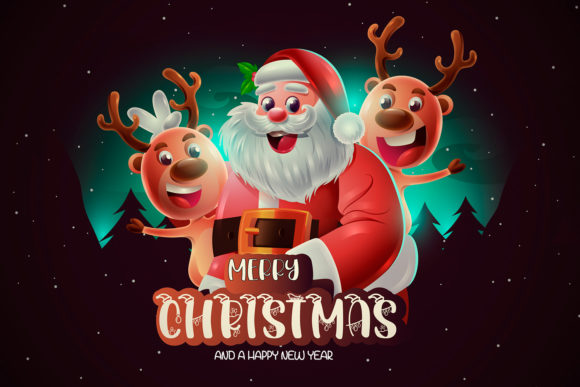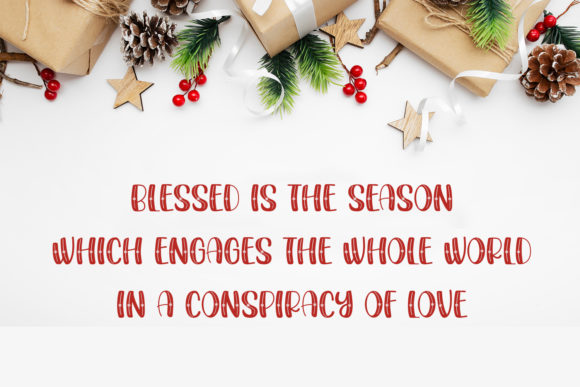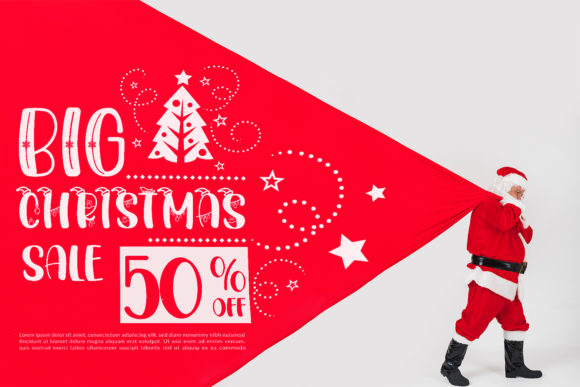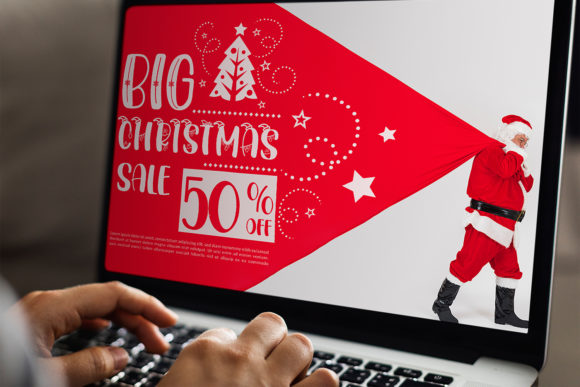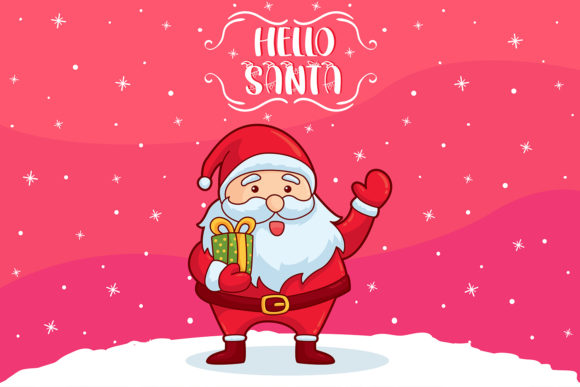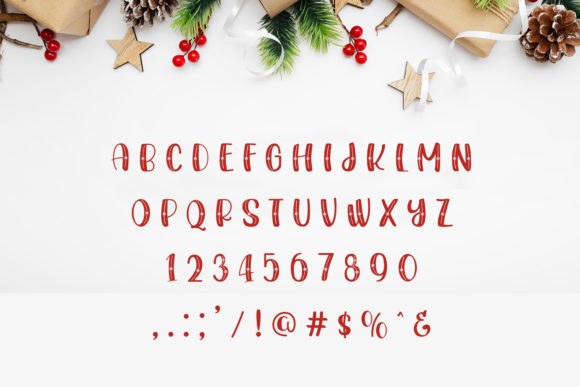
Introducing Christmas Land Font: The Ultimate Holiday Display Font
Are you looking for a font that captures the warmth and festivity of the holiday season? Look no further than Christmas Land Font, a beautifully designed display font perfect for creating holiday-themed greeting cards, crafting projects, and more. In this article, we’ll dive into the details of Christmas Land Font, exploring its features, uses, and benefits for designers and crafters.
What is Christmas Land Font?
Christmas Land Font is a warm and festive display font designed to evoke the magic of the holiday season. Its elegant and romantic style makes it ideal for a variety of creative projects, from holiday greeting cards to crafting projects that require a touch of whimsy. With its unique and eye-catching design, Christmas Land Font is sure to add a special something to your holiday creations.
Key Features of Christmas Land Font
- Warm and Festive: Christmas Land Font is designed to capture the warmth and festivity of the holiday season, making it perfect for holiday-themed projects.
- Elegant and Romantic: The font’s elegant and romantic style makes it ideal for crafting projects that require a touch of sophistication.
- Display Font: Christmas Land Font is a display font, designed to make a statement and add visual interest to your projects.
Uses for Christmas Land Font
Christmas Land Font is a versatile font that can be used in a variety of creative projects, including:
- Holiday Greeting Cards: Add a touch of elegance and festivity to your holiday greeting cards with Christmas Land Font.
- Crafting Projects: Use Christmas Land Font to add a romantic touch to your crafting projects, such as scrapbooking, paper crafting, and more.
- Signs and Displays: Use Christmas Land Font to create eye-catching signs and displays for your holiday events or promotions.
- Social Media Graphics: Add a touch of holiday cheer to your social media graphics with Christmas Land Font.
Christmas Land Font offers a range of benefits for designers and crafters, including:
- Unique and Eye-Catching Design: Christmas Land Font’s unique and eye-catching design makes it perfect for adding visual interest to your projects.
- Versatile: Christmas Land Font can be used in a variety of creative projects, from holiday greeting cards to crafting projects.
- High-Quality: The font is designed to high-quality standards, ensuring that it will look great in your projects.
Tips for Using Christmas Land Font
Here are a few tips for using Christmas Land Font in your projects:
- Use it as a Title Font: Christmas Land Font is perfect for use as a title font, adding a touch of elegance and festivity to your projects.
- Experiment with Colors: Try experimenting with different colors to find the perfect look for your project.
- Pair it with Other Fonts: Christmas Land Font pairs well with other fonts, so feel free to experiment with different combinations.
Christmas Land Font is a beautiful and versatile display font that’s perfect for adding a touch of warmth and festivity to your holiday projects. With its elegant and romantic style, it’s ideal for holiday greeting cards, crafting projects, and more. Whether you’re a designer or crafter, Christmas Land Font is a great addition to your font collection.